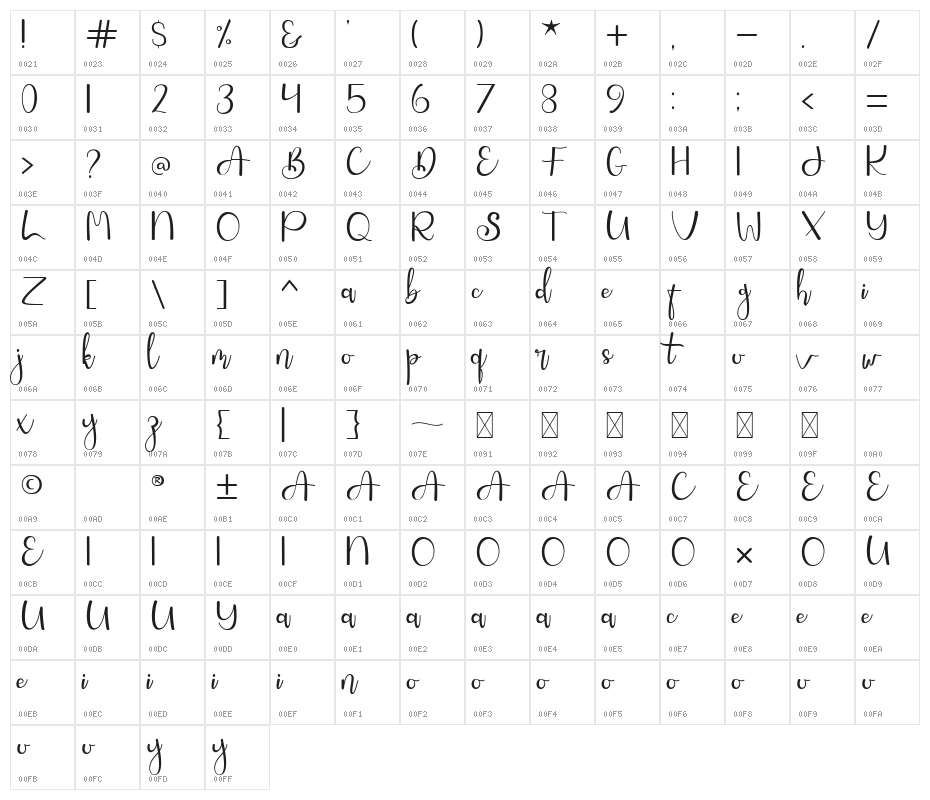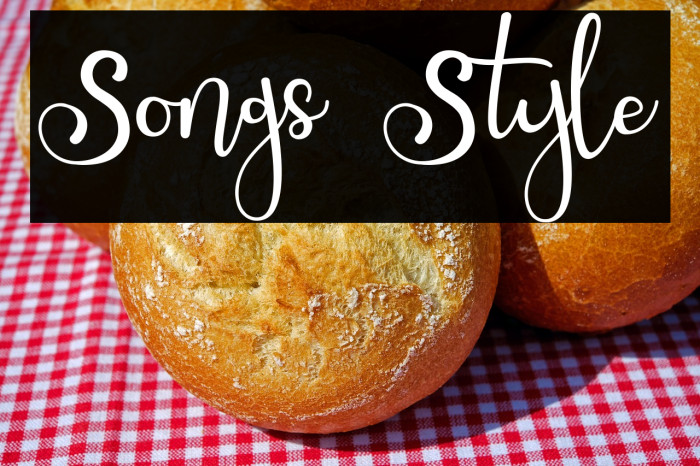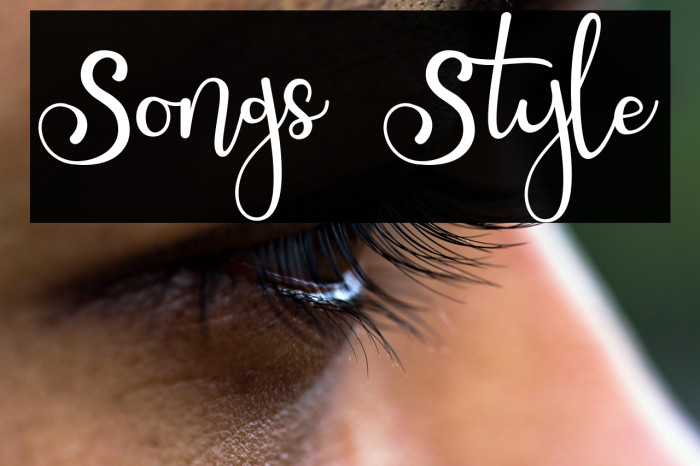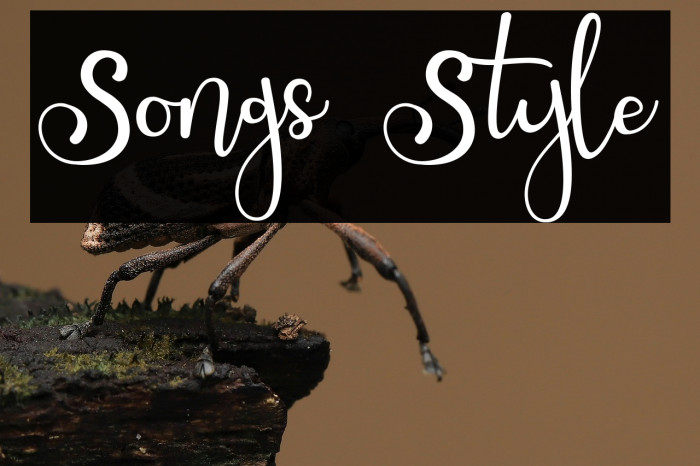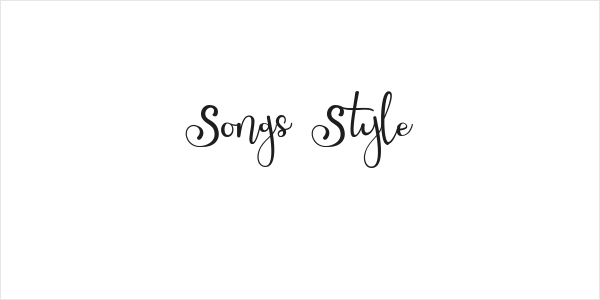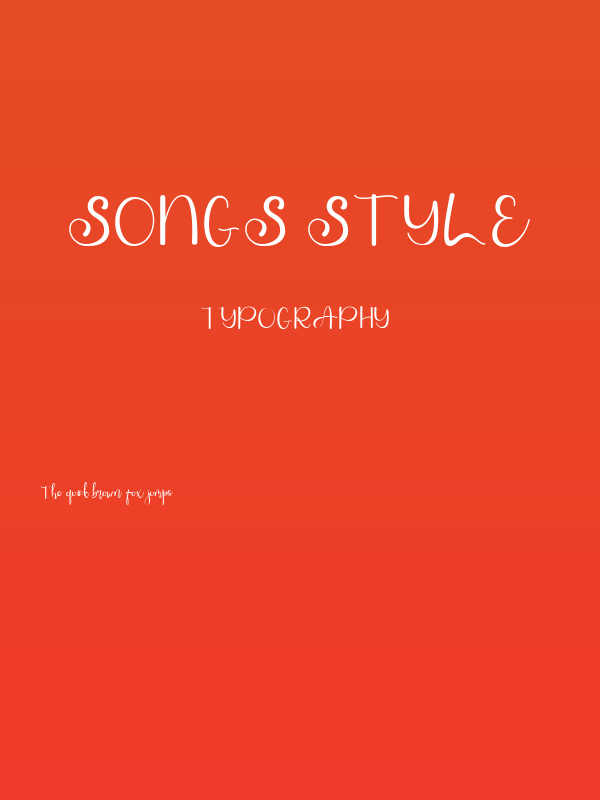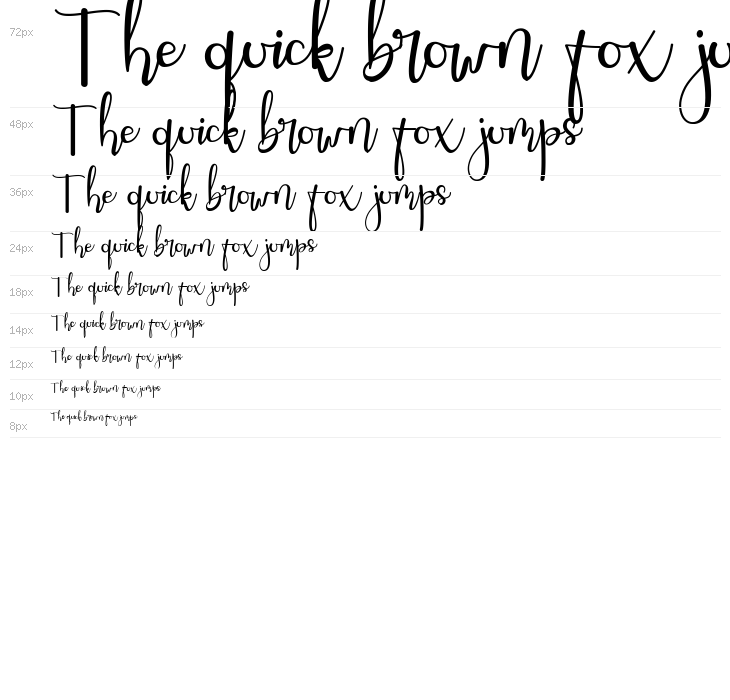
Songs Style Font
Songs Style Description
This font features a playful and whimsical script style with a handwritten appearance. The uppercase letters are characterized by smooth, flowing lines and a slight slant, giving them an elegant yet casual feel. The lowercase letters maintain the same fluidity, with some letters featuring loops and curls that add to the font's charm. The numerals are clear and easy to read, with a consistent stroke width that matches the letters. Special characters are creatively designed, maintaining the overall playful aesthetic. This font is perfect for projects that require a personal touch or a sense of creativity.
| Use Case | Logos, Invitations, Social Media |
| Proposed Projects | Ideal for wedding invitations, greeting cards, branding, and social media graphics. |